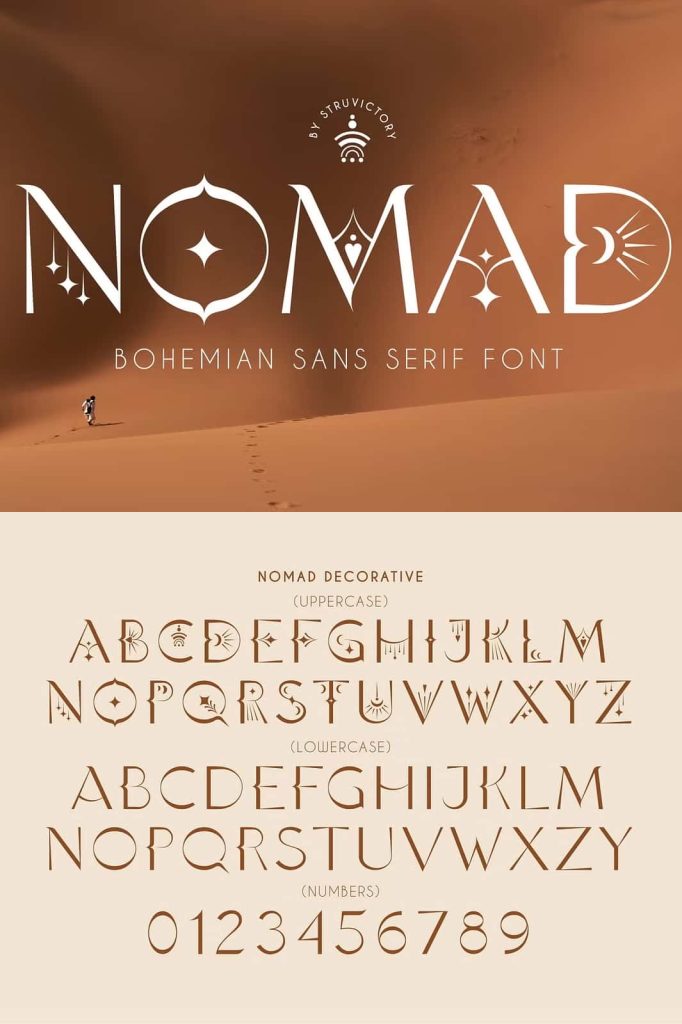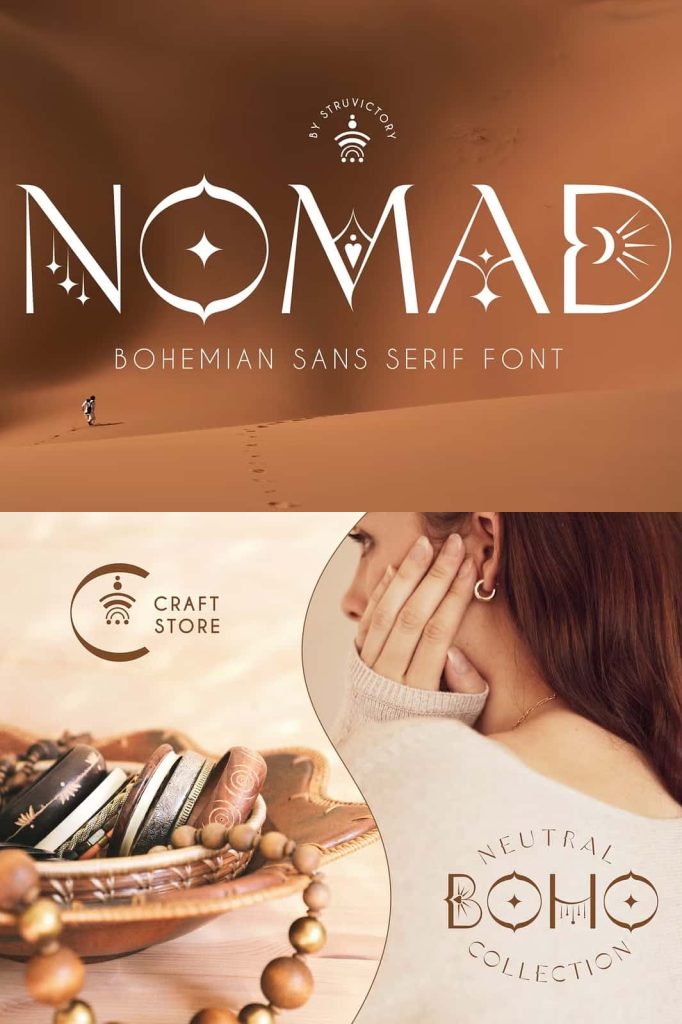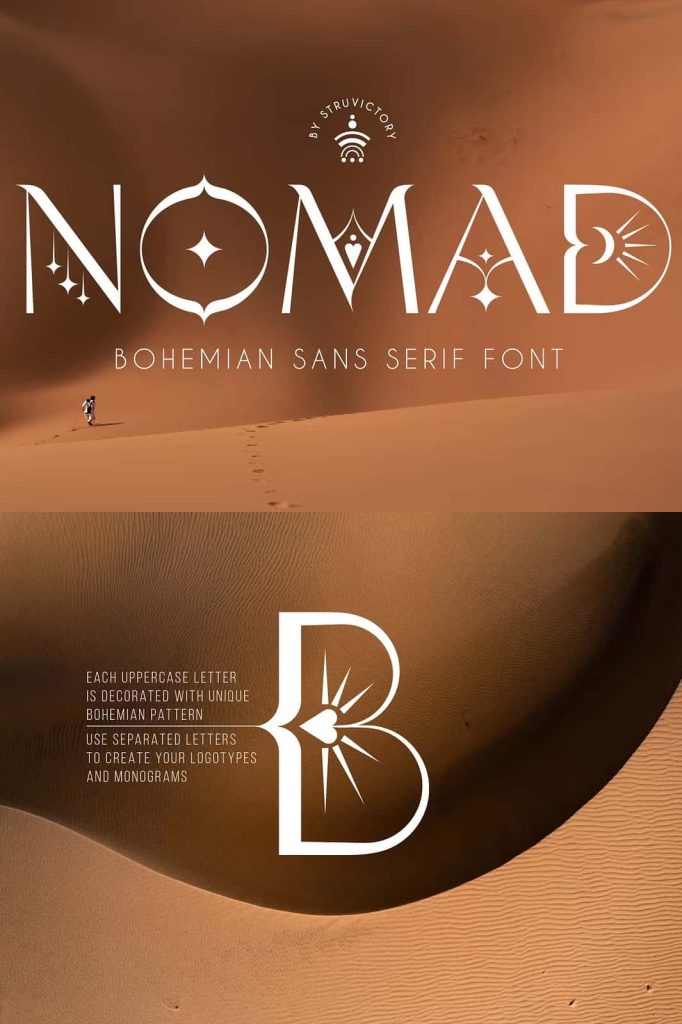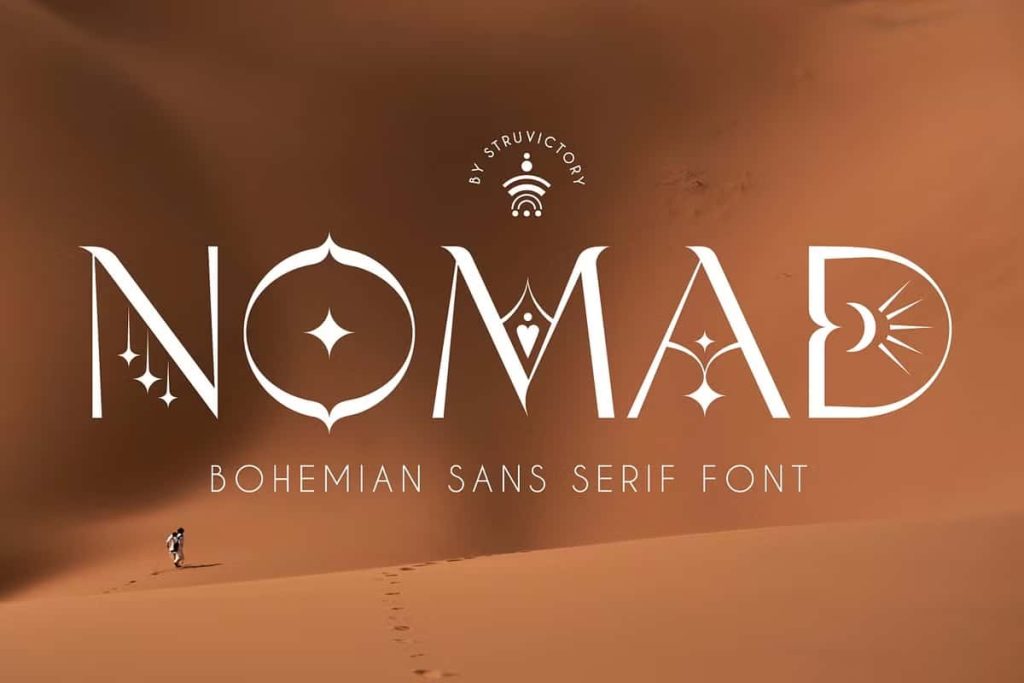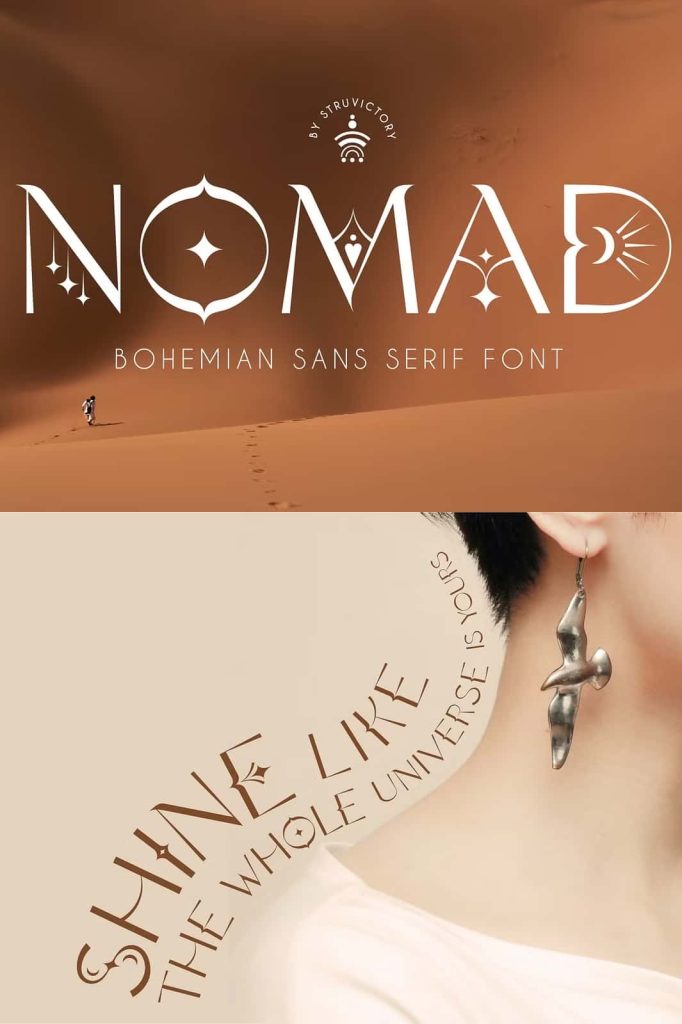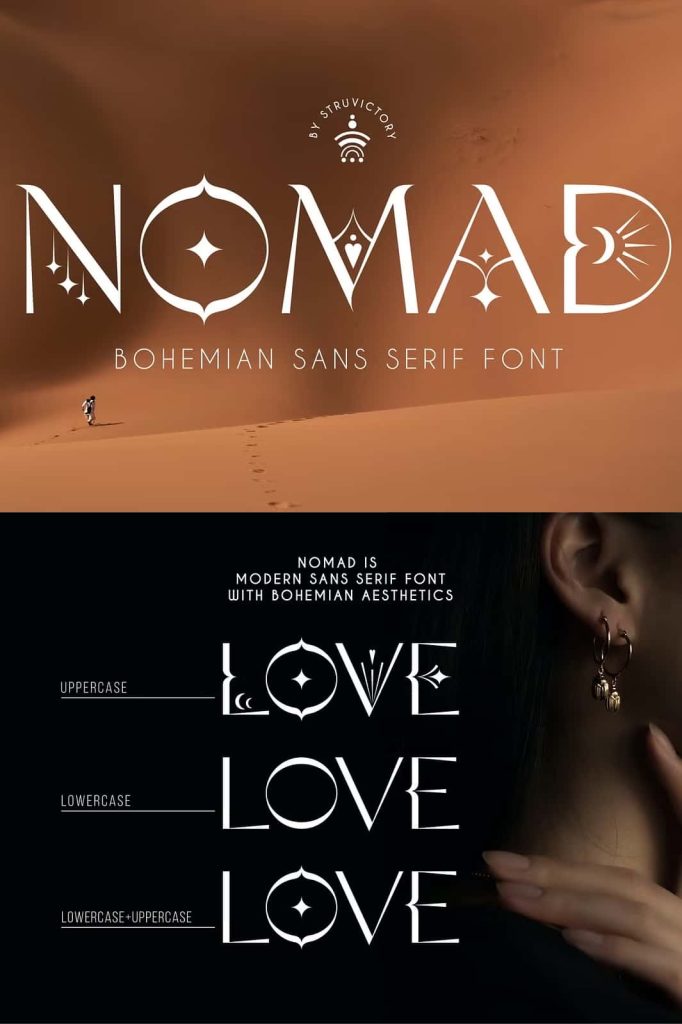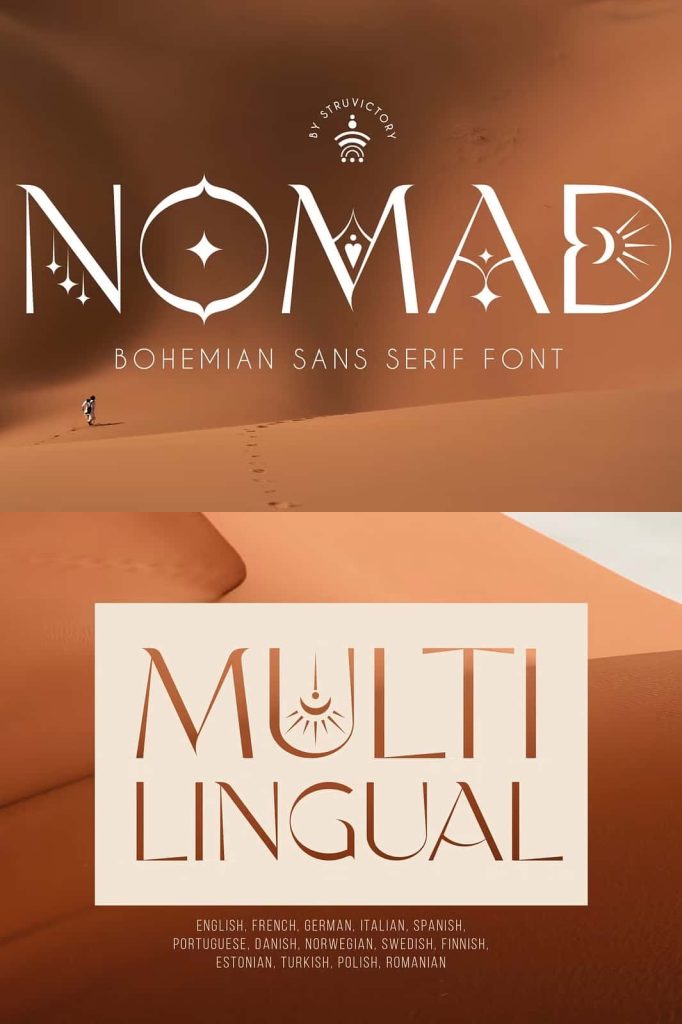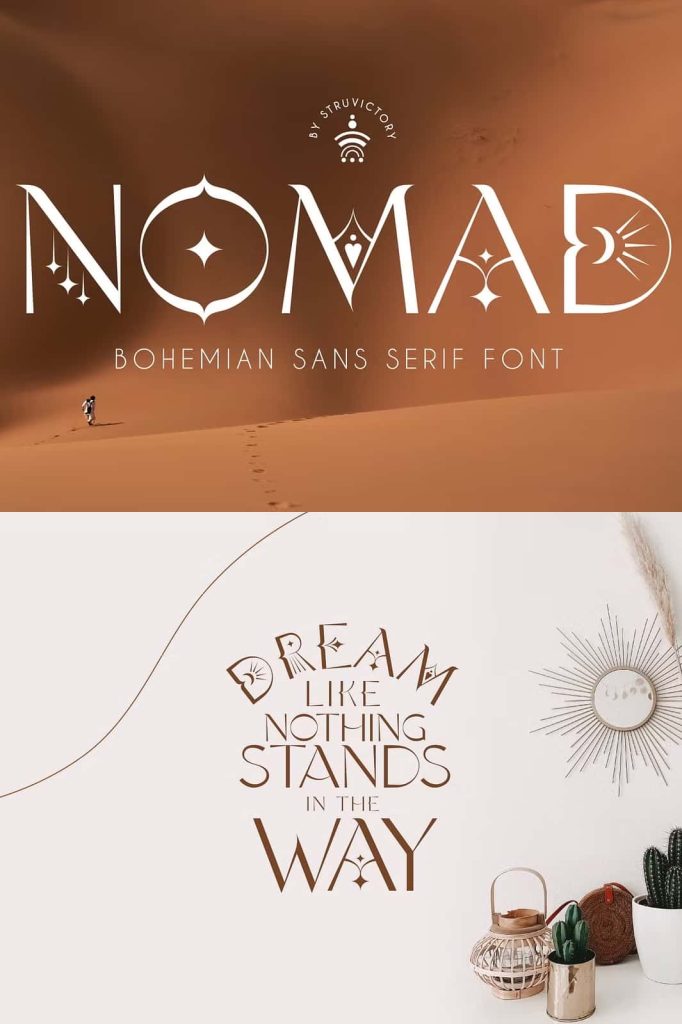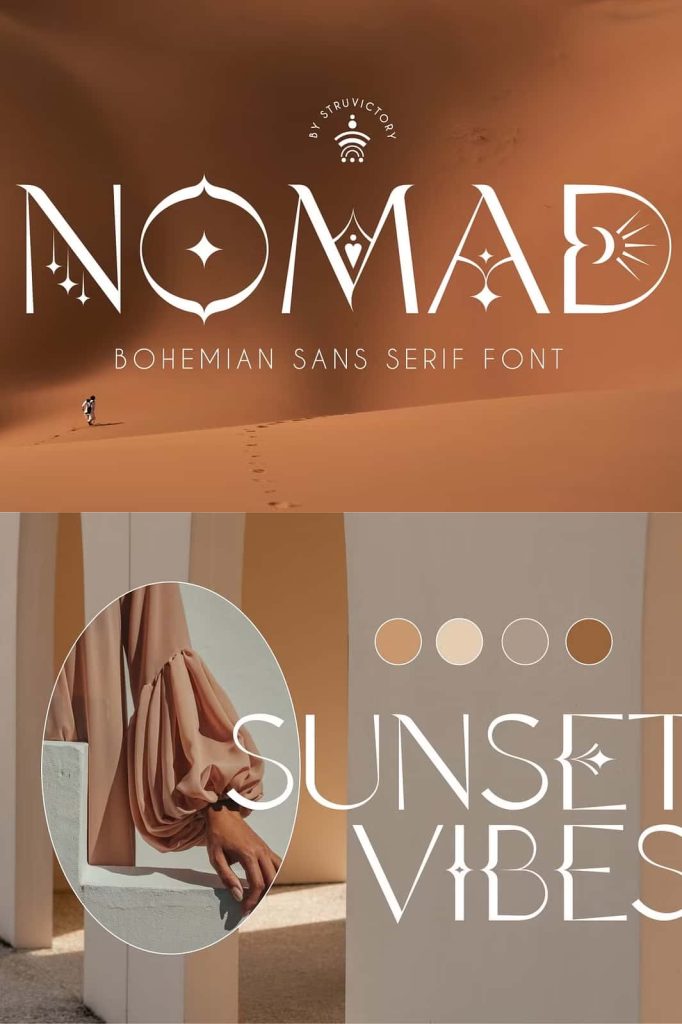
NOMAD Font: A Modern Sans Serif with Bohemian and Celestial Style
NOMAD combines modern typography with artistic bohemian influences to create a distinctive and expressive sans serif font. This typeface balances clean, classic proportions with decorative elements inspired by celestial and boho aesthetics. Designers can use NOMAD to create visuals that feel both structured and free-spirited, making it a versatile choice for a wide range of creative projects.
The font does not rely solely on minimalism. Instead, it enhances its clean foundation with subtle ornamental details that add personality and depth. This combination allows NOMAD to stand out while maintaining clarity and readability.
What Makes NOMAD Unique?
NOMAD stands out because it merges two contrasting design approaches. On one hand, it follows the principles of modern sans serif typography, offering balance, clarity, and precision. On the other hand, it introduces decorative bohemian and celestial motifs that create a sense of artistry and individuality.
This dual nature allows designers to use the font in both professional and creative contexts. It works equally well in structured layouts and expressive compositions.
Key Characteristics
- Modern sans serif structure with clean proportions
- Decorative bohemian and celestial elements
- Balanced design that combines clarity and creativity
- Versatile for both minimal and expressive layouts
- Distinctive visual identity with artistic details
The Influence of Bohemian and Celestial Design
The bohemian style emphasizes freedom, creativity, and individuality. NOMAD captures this spirit through its decorative accents, which often reflect natural and cosmic themes. These elements add a sense of movement and imagination to the typography.
The celestial influence introduces subtle references to stars, cosmic patterns, and mystical shapes. This aspect enhances the visual appeal and gives the font a unique character that resonates with modern design trends.
Why This Style Works
- Creates a strong emotional and visual connection
- Adds artistic depth to simple typography
- Appeals to modern audiences seeking unique design
- Combines structure with creative expression
Best Use Cases for NOMAD Font
NOMAD adapts well to projects that require both clarity and personality. Its modern base ensures readability, while its decorative elements make it suitable for creative and artistic applications. Designers can use this font to build unique visual identities that stand out in competitive markets.
Ideal Applications
- Branding for lifestyle and creative businesses
- Editorial layouts with a modern artistic touch
- Social media graphics with a bohemian aesthetic
- Packaging designs that emphasize individuality
- Event materials such as invitations and posters
How to Use NOMAD Effectively
To maximize the impact of NOMAD, designers should focus on balance. Use the decorative elements strategically to enhance the design without overwhelming it. Pair the font with simple typefaces to maintain readability and create contrast.
Allow enough space around the text to highlight the ornamental details. This approach ensures that the decorative features remain clear and visually appealing.
Design Tips
- Use for headlines and key design elements
- Combine with minimal fonts for contrast
- Apply earthy or cosmic color palettes for cohesion
- Maintain clean layouts to highlight details
NOMAD delivers a unique blend of modern typography and bohemian artistry. Its clean structure and decorative celestial elements create a typeface that feels both refined and expressive. Designers who want to create distinctive and memorable visuals will find NOMAD an excellent addition to their toolkit.
By using NOMAD, you can introduce creativity, personality, and balance into your designs. This font transforms typography into a visual experience that reflects both structure and artistic freedom.